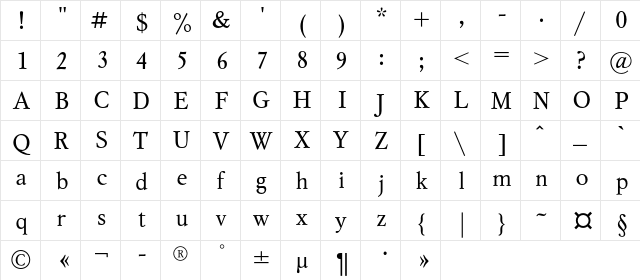
MyslC Regular
Design Context for MyslC Typeface
MyslC takes a measured approach to typography — its balanced proportions and neutral character make it a reliable workhorse for both digital and print work.
Pro Tip: Use MyslC in both headline and body roles to test its range before committing to a single application.